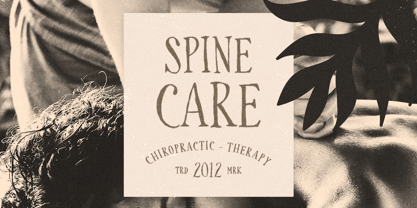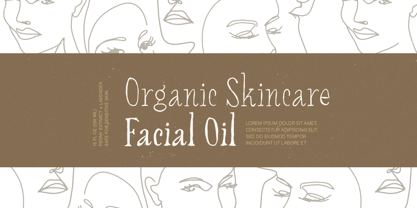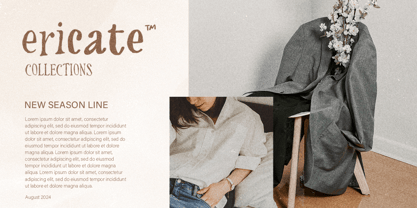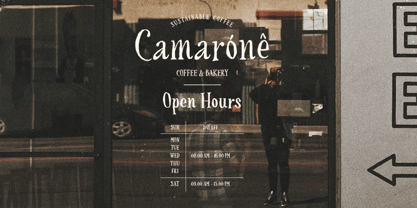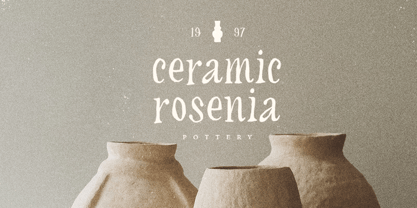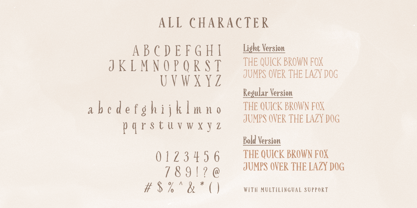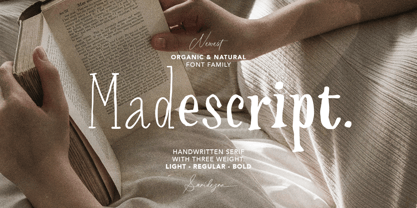
Madescript
by Sarid Ezra
The Madescript Font Family was designed by Sarid Ezra and published by Sarid Ezra. Madescript contains 3 styles and family package options.
Madescript is a hand lettered sans serif family with natural and organic looks! Contain three weight. Including Light - Regular - Bold. You can use this font for every project such as branding, logo, hand lettering, or quotes. When you want a handmade touch in your design, this font will never go wrong. This font family also support multilingual, number and symbol.